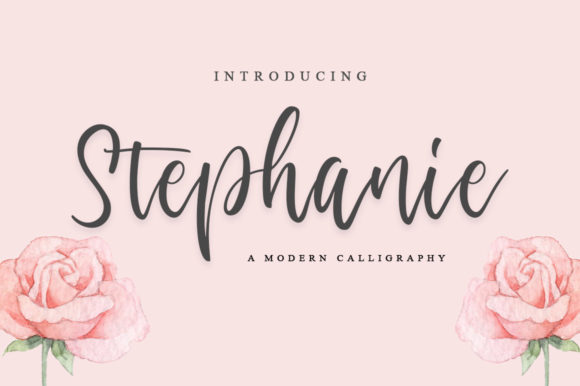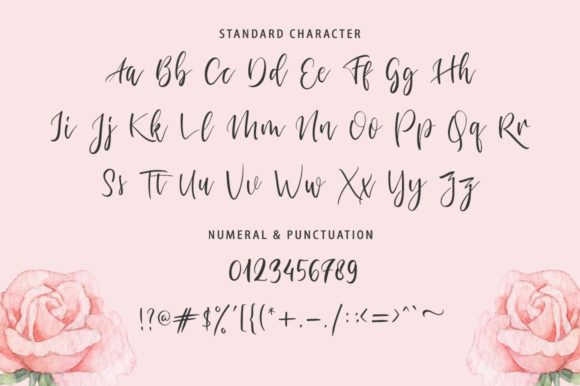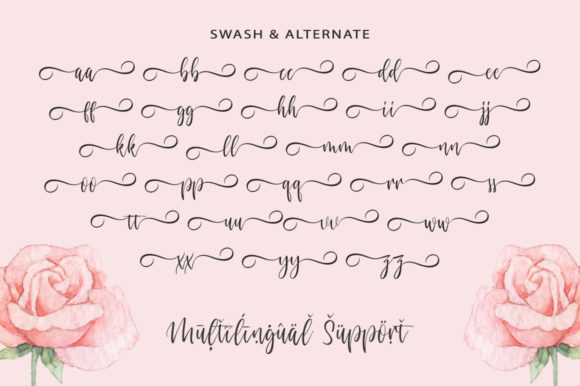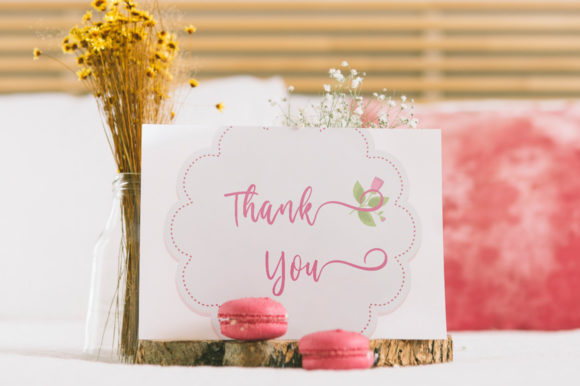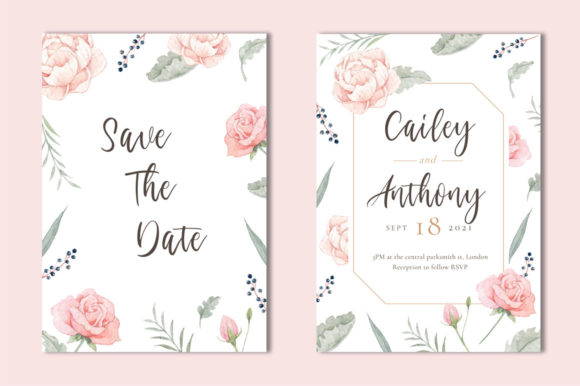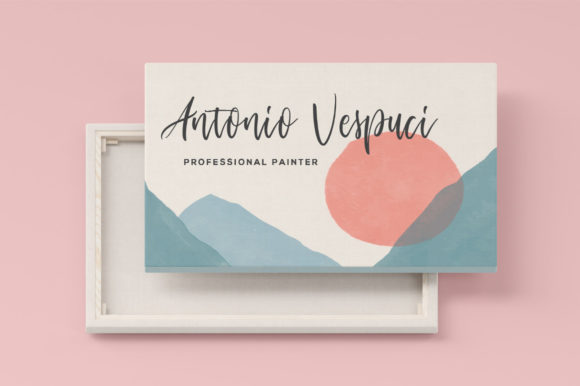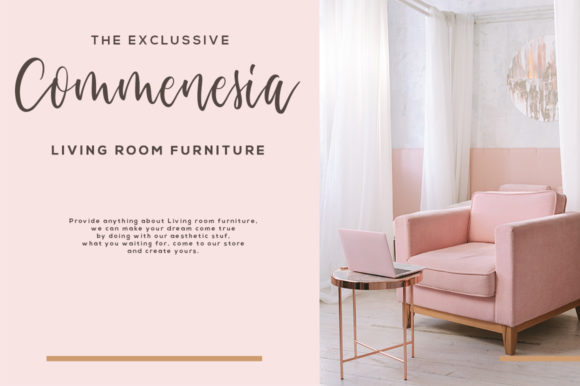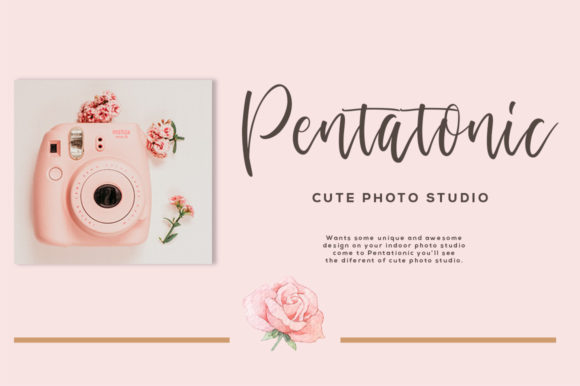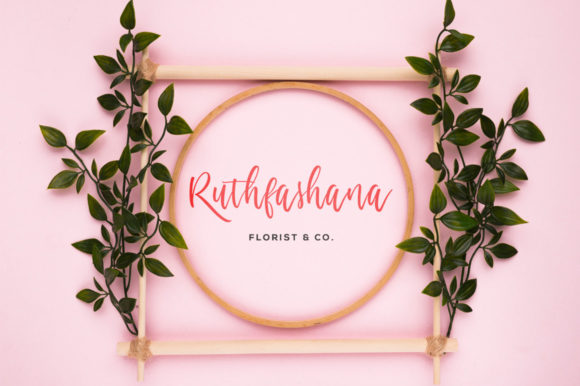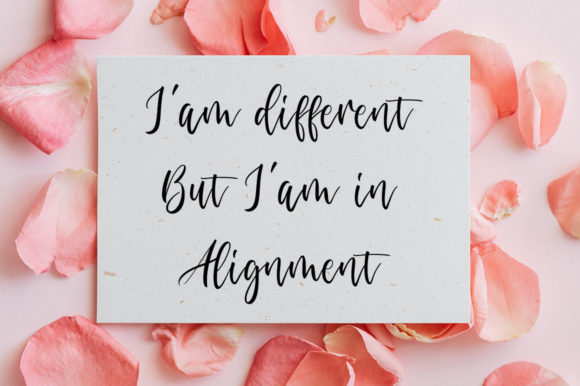
Stephanie Font
About Stephanie Font
Stephanie is a lovely script font featuring charming, playful characters that seem to dance along the baseline. Add this font to your most creative ideas, and notice how it makes them stand out!